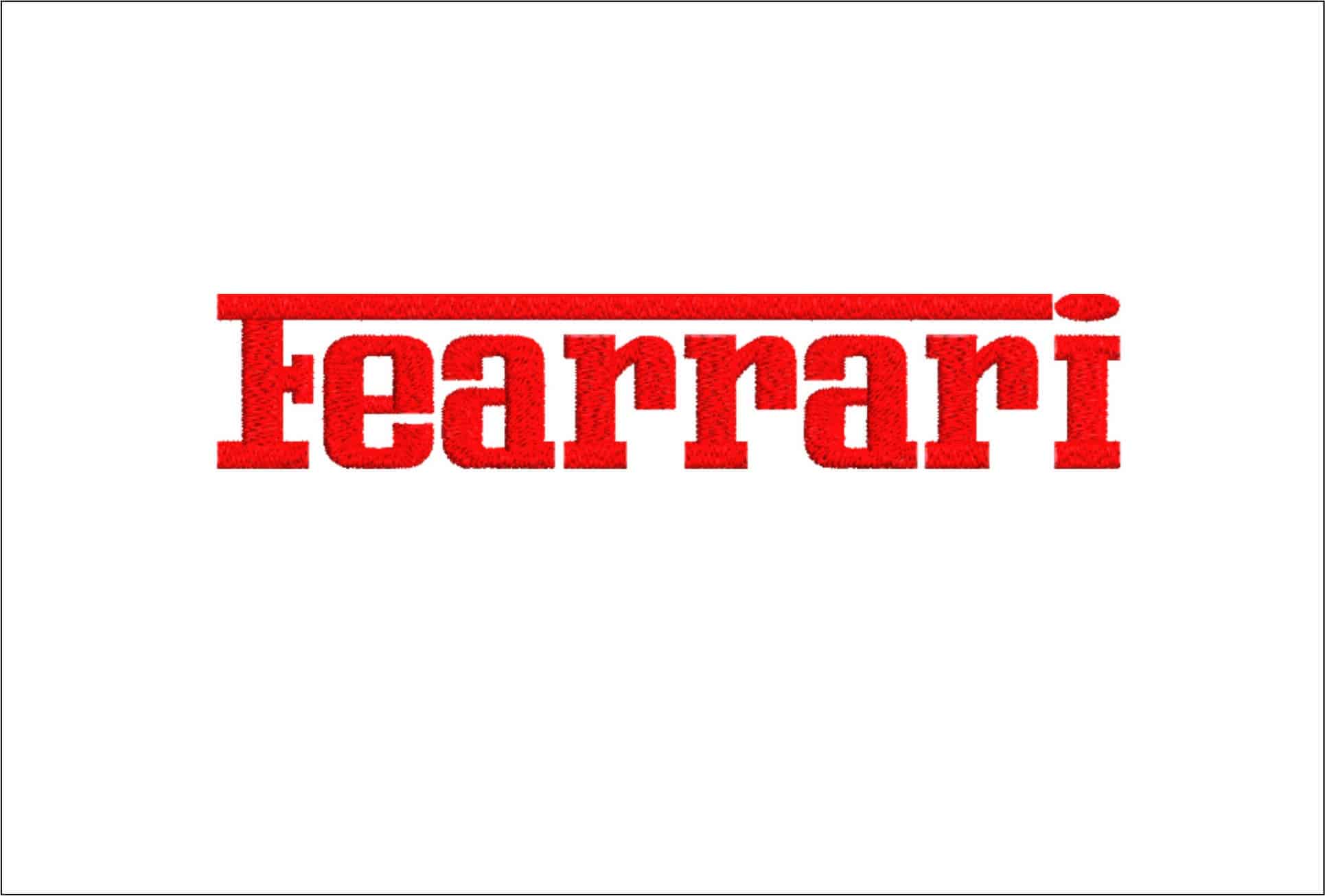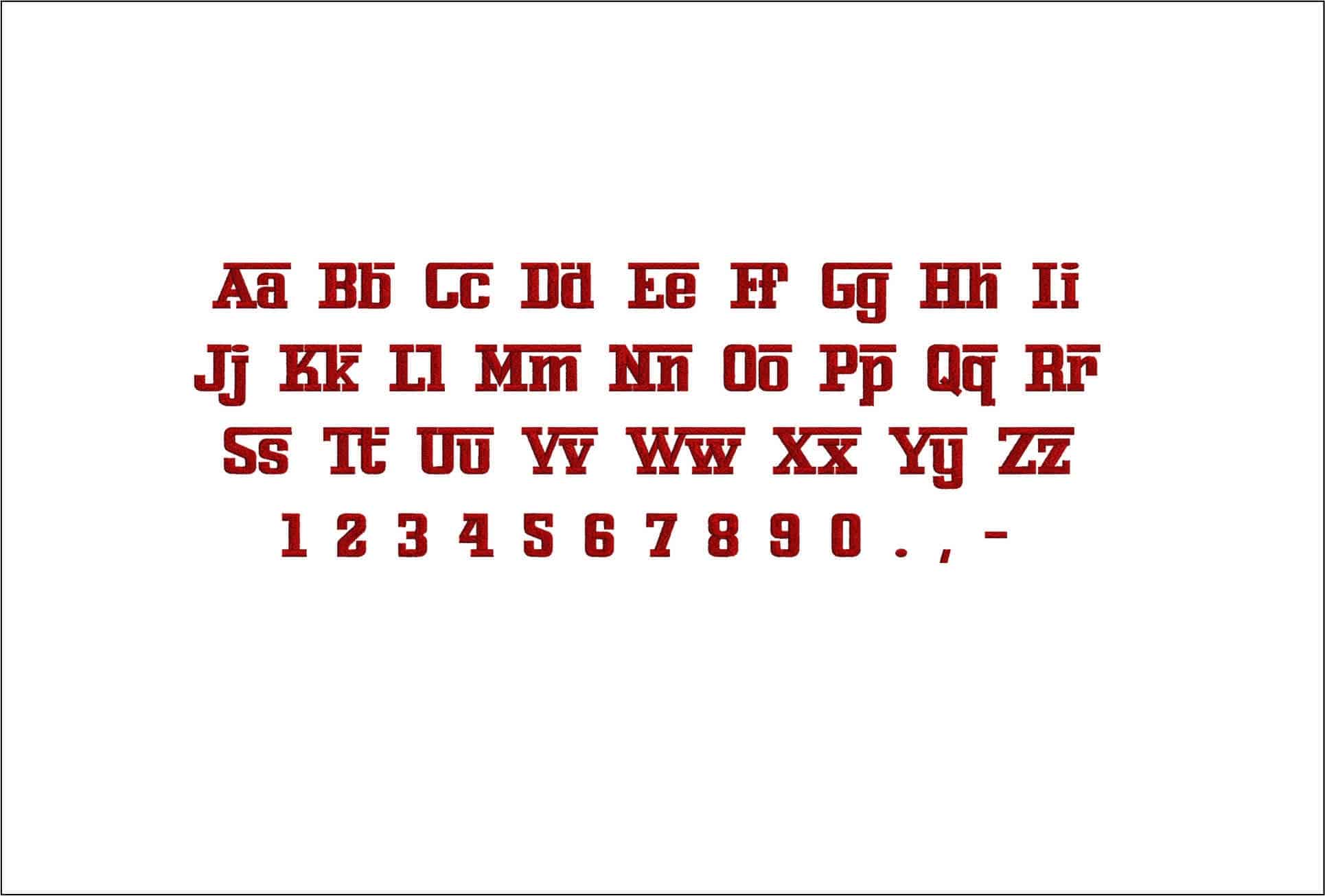
Bold varsity serif lettering with a crisp overline, for names, team-style wording and standout monograms on clothing and accessories.
Bring bold varsity style to your stitching with the Fearrari font set, a strong serif alphabet finished with a clean horizontal overline that gives every word a sporty, badge-like look. The sample shows uppercase and lowercase letters, numbers and simple punctuation, making it a practical choice for adding names, initials and short phrases without losing that uniform, collegiate feel. It suits anyone personalising school bags, team kit, clubwear or gifts that need lettering with more presence than a plain block font.
This style works especially well on sweatshirts, hoodies, jacket backs, canvas totes and the fronts of caps where you want the letters to read clearly at a glance. The thick, structured shapes give short names and single-word placements a confident, graphic finish, while the overline helps frame the text neatly across the top. Use it when you want embroidery that feels sporty and polished rather than delicate or decorative.